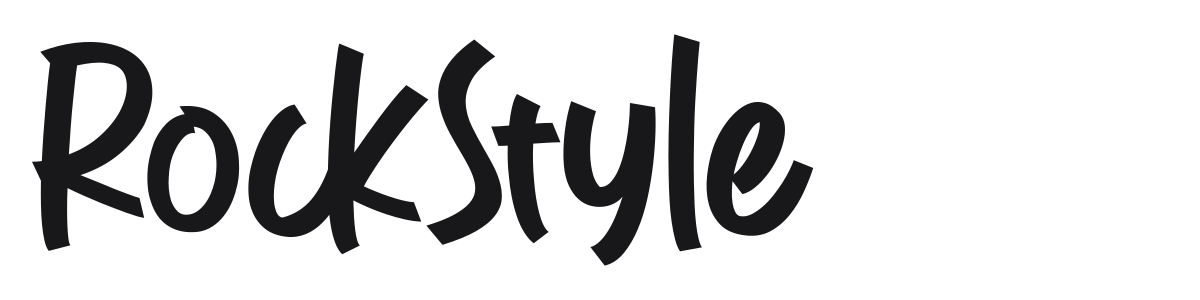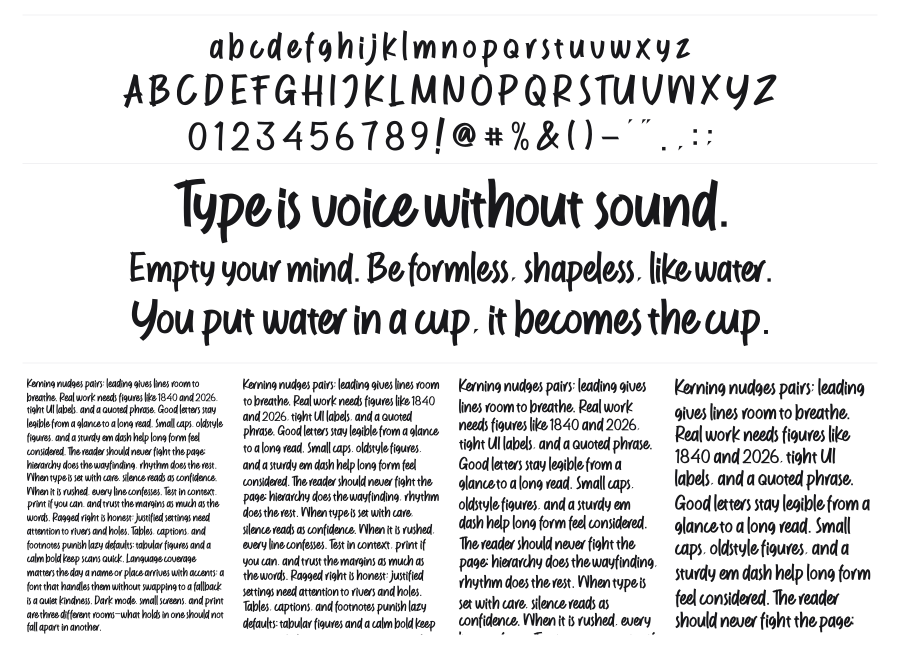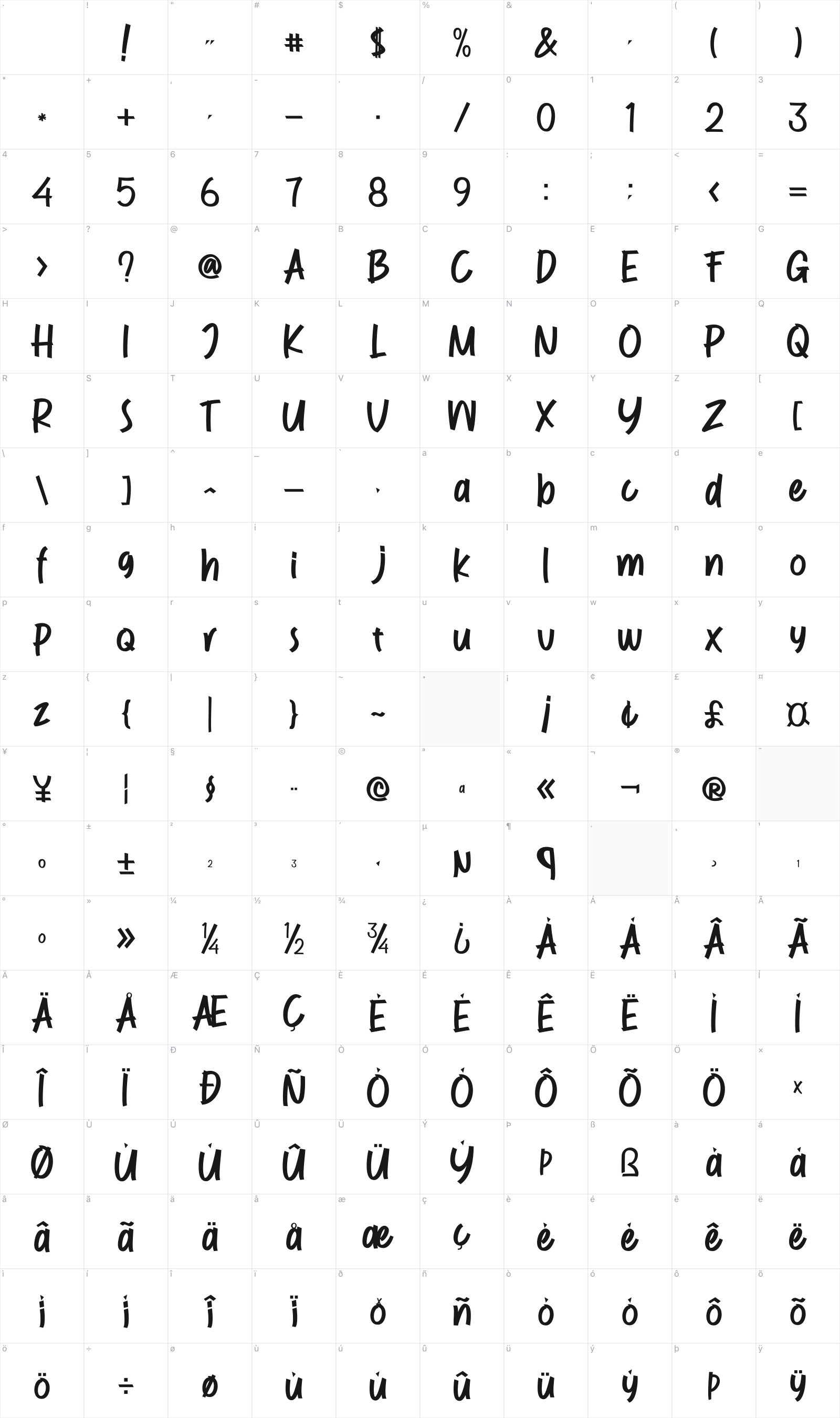
RockStyle
RockStyle is a bold casual script with a thick, hand-drawn quality and upright posture that radiates energy. The letters feel naturally irregular, like someone who writes fast and confidently, with rounded terminals and slight variation in stroke width keeping it from feeling mechanical. It works best large, where that looseness reads as personality rather than imprecision.